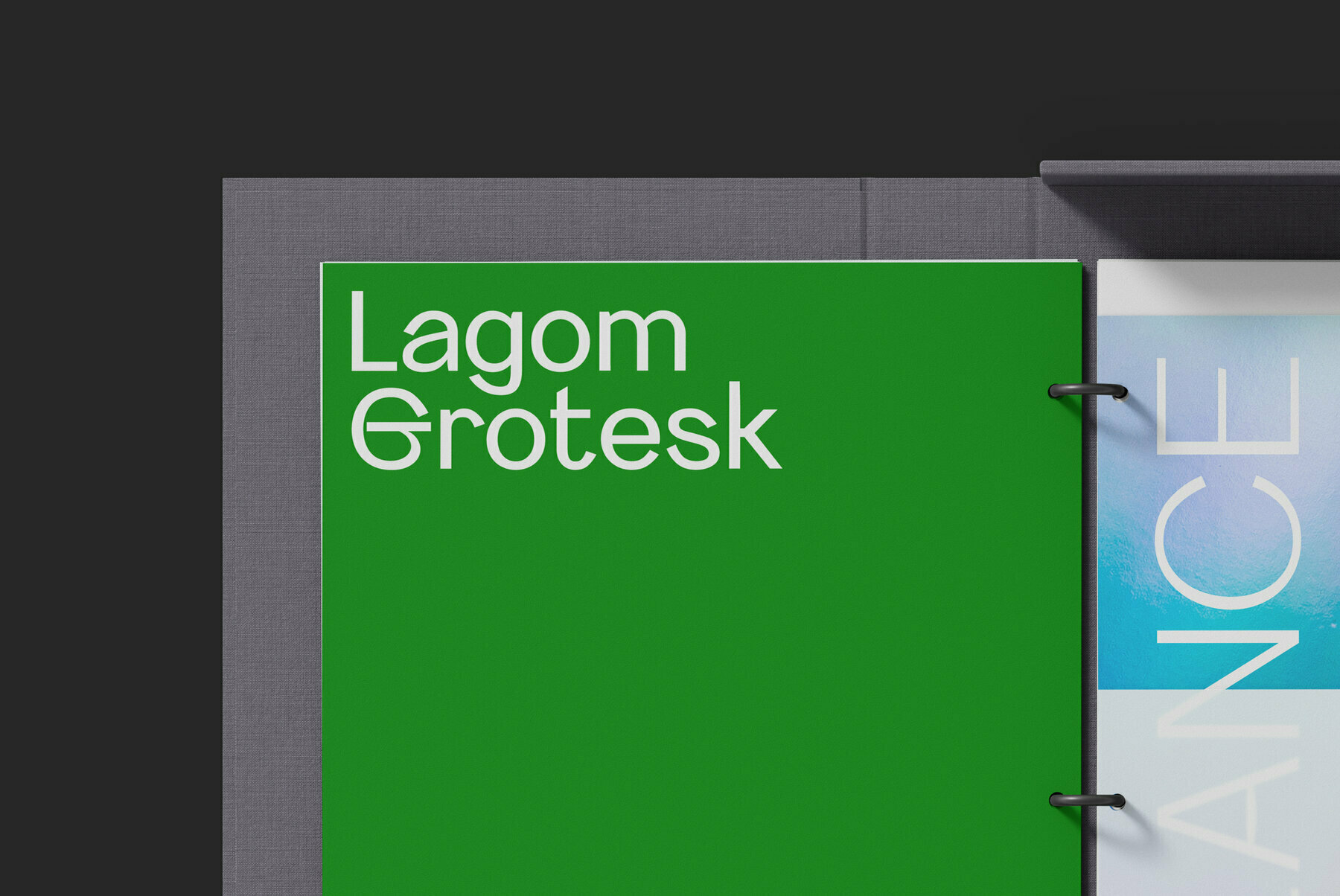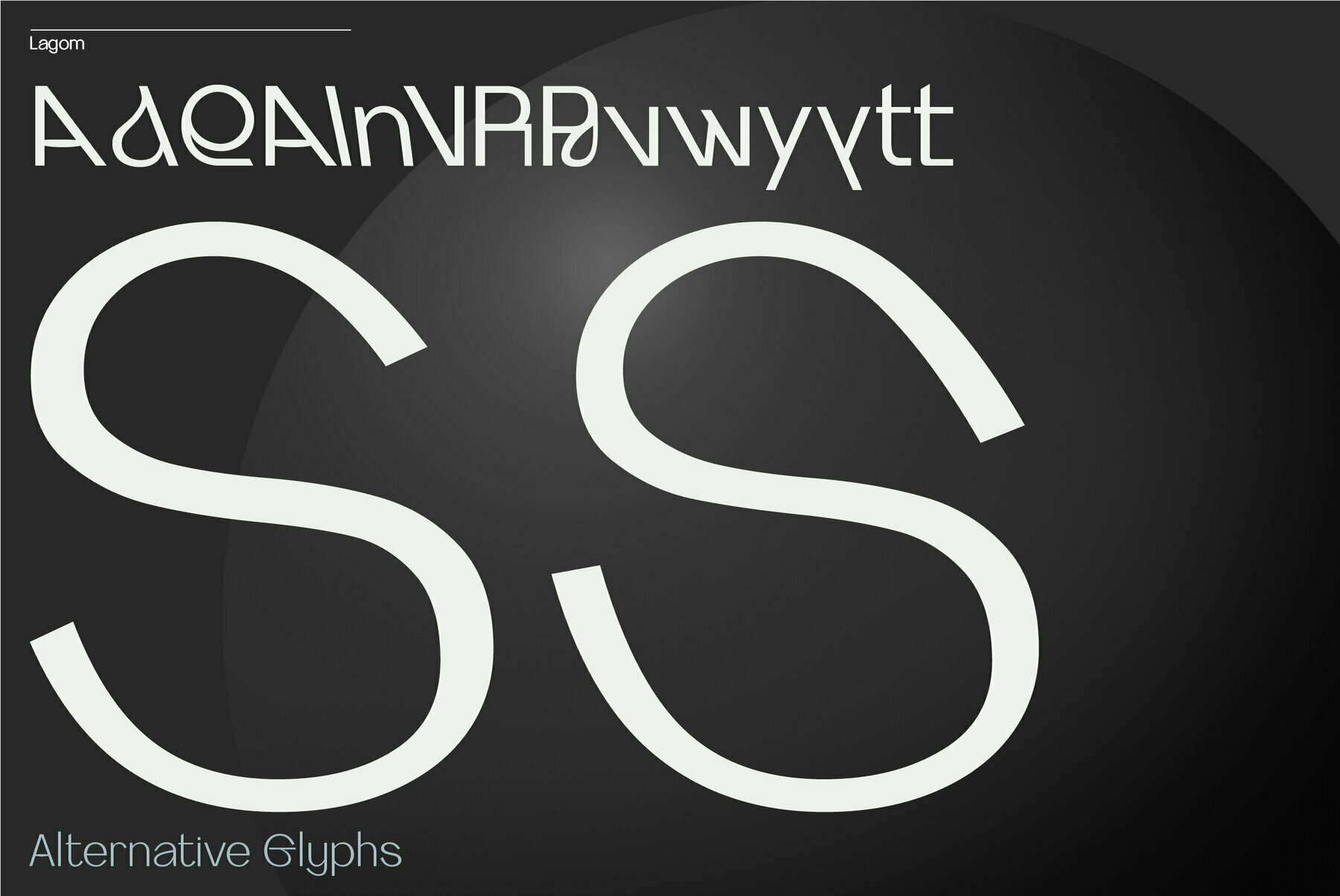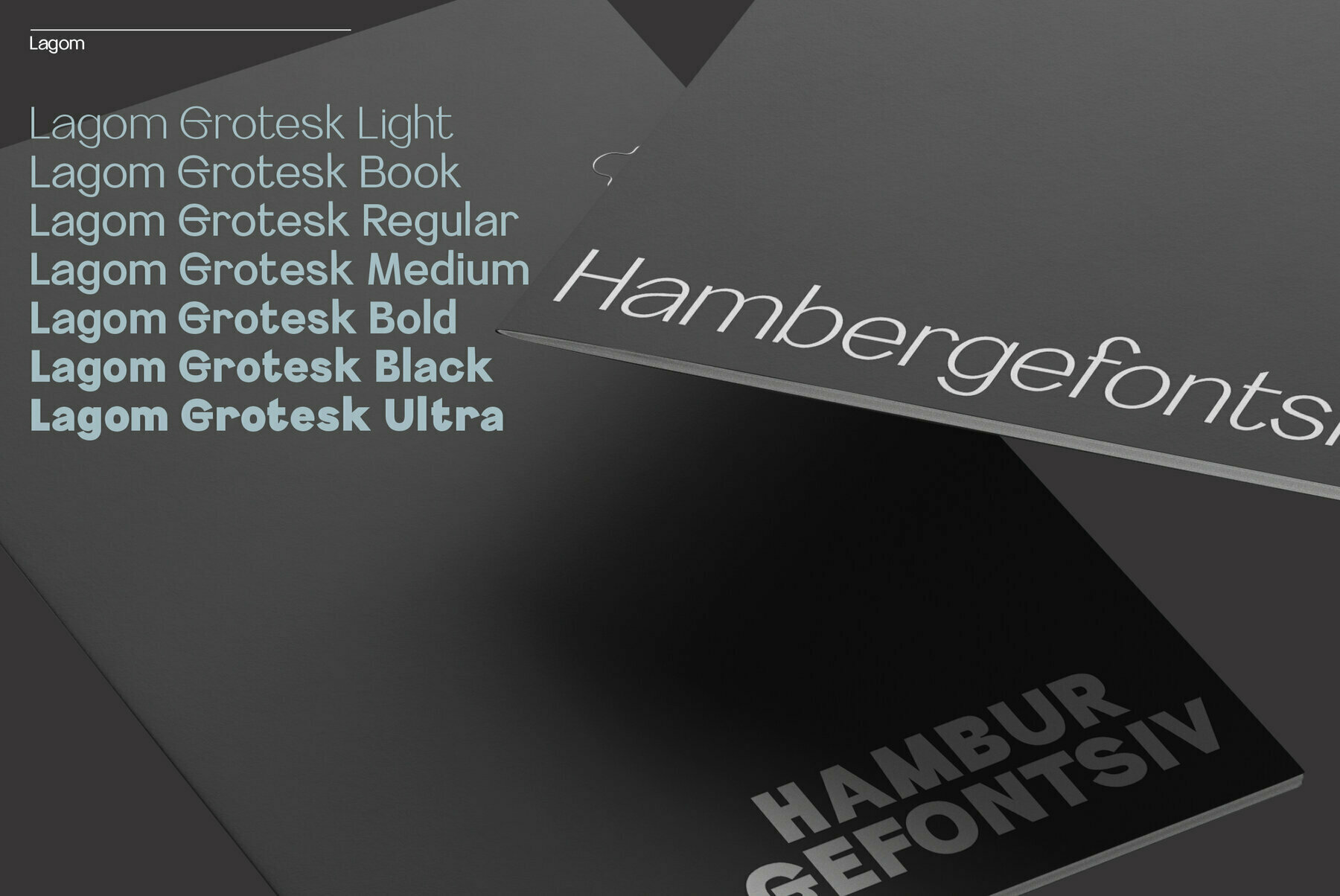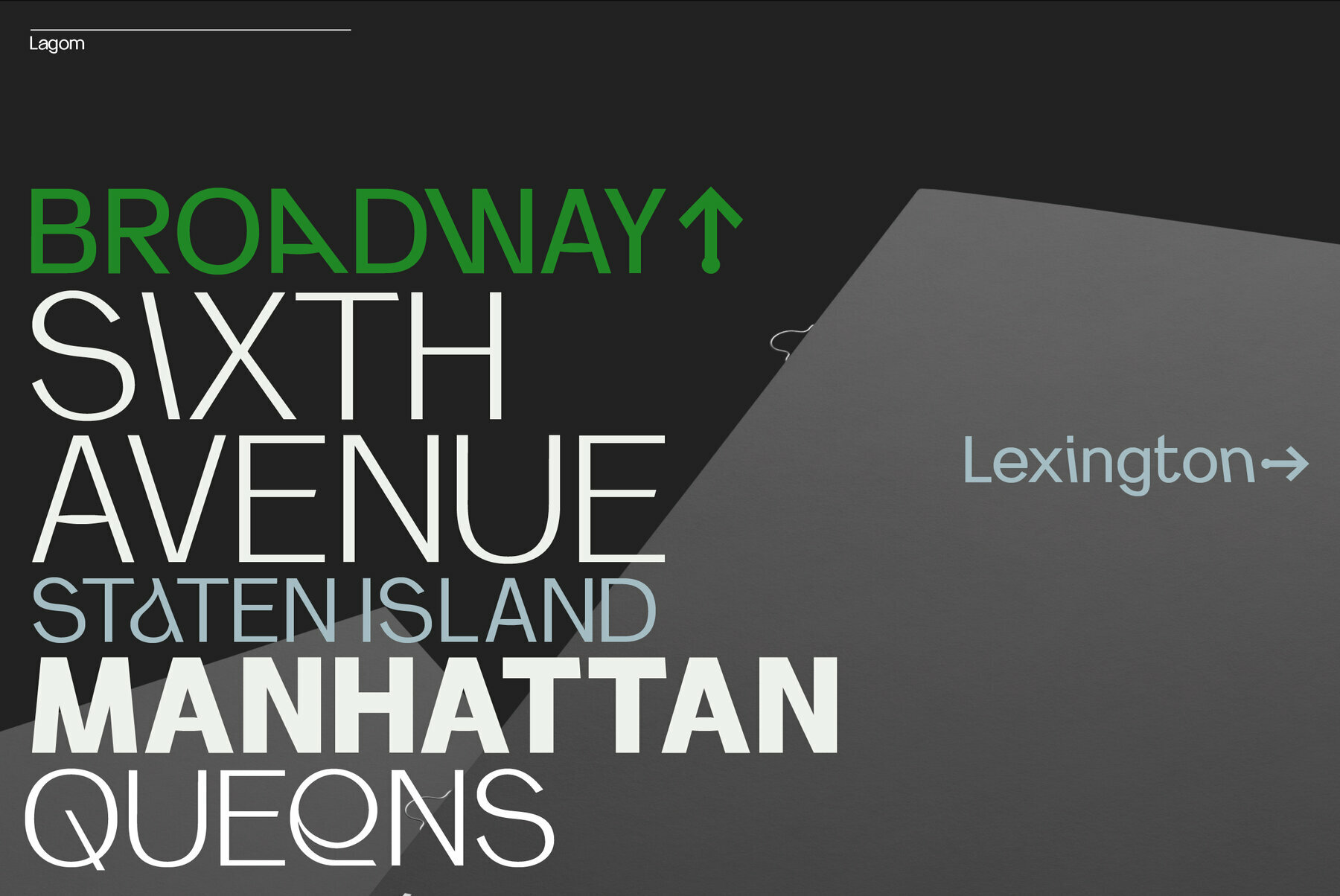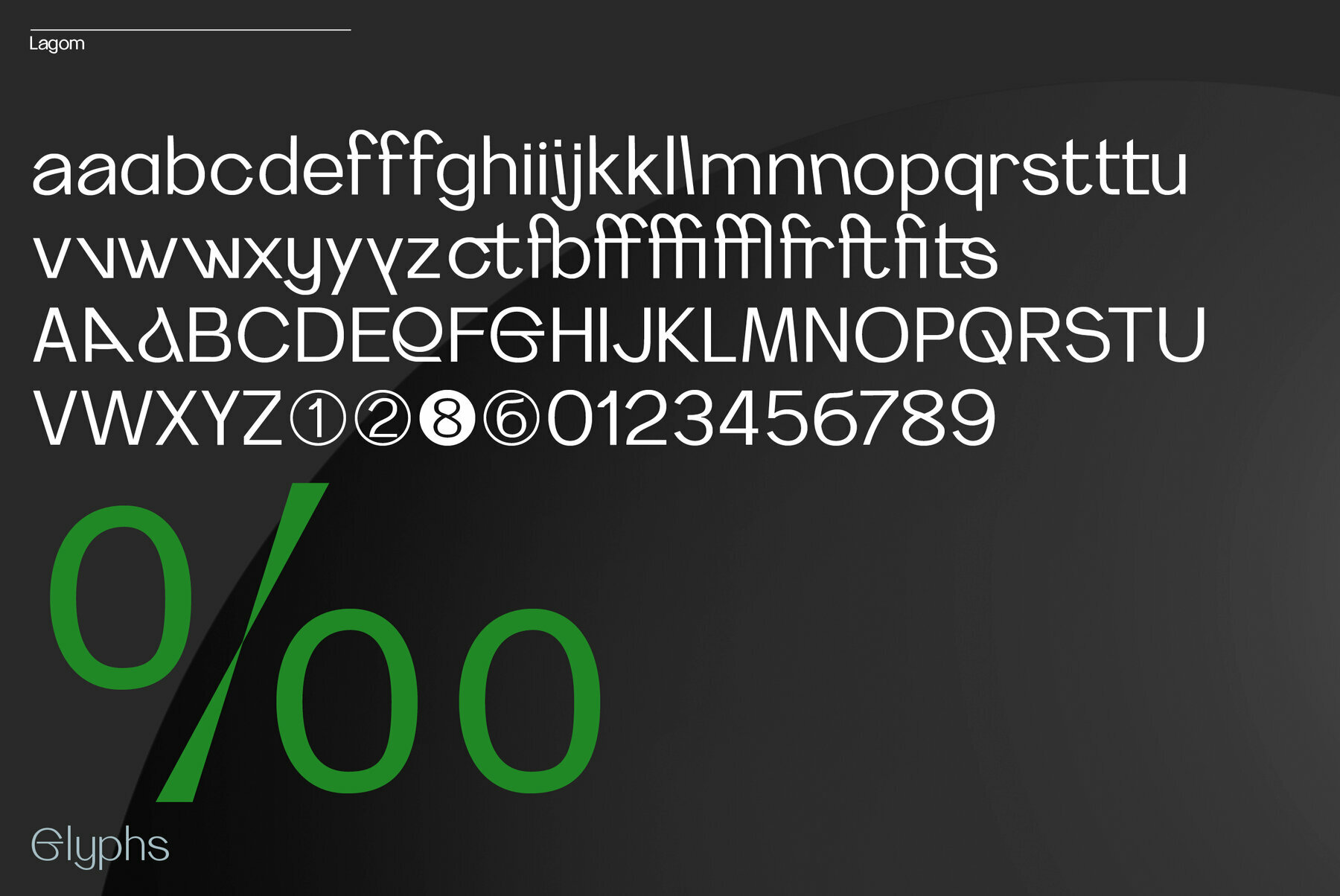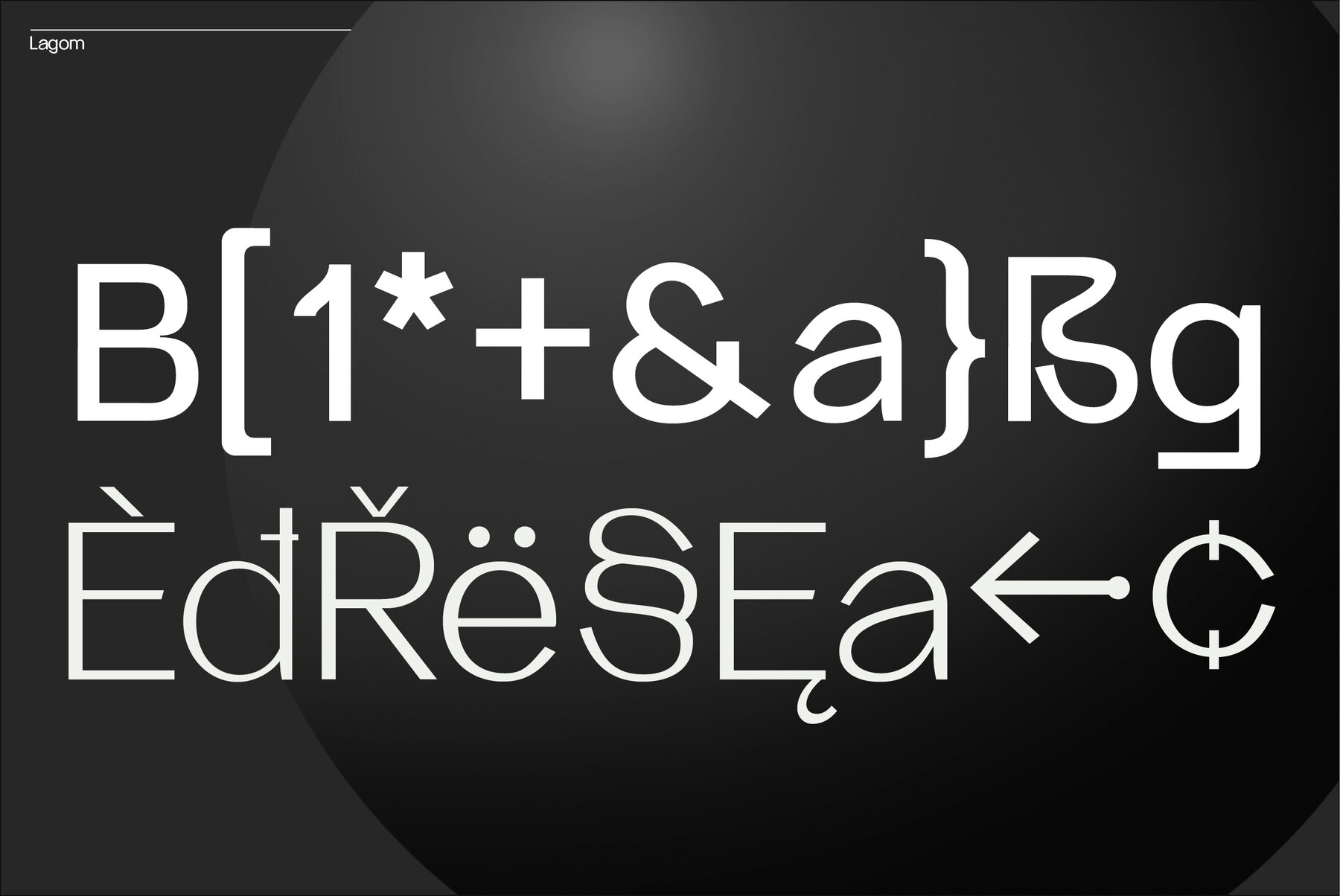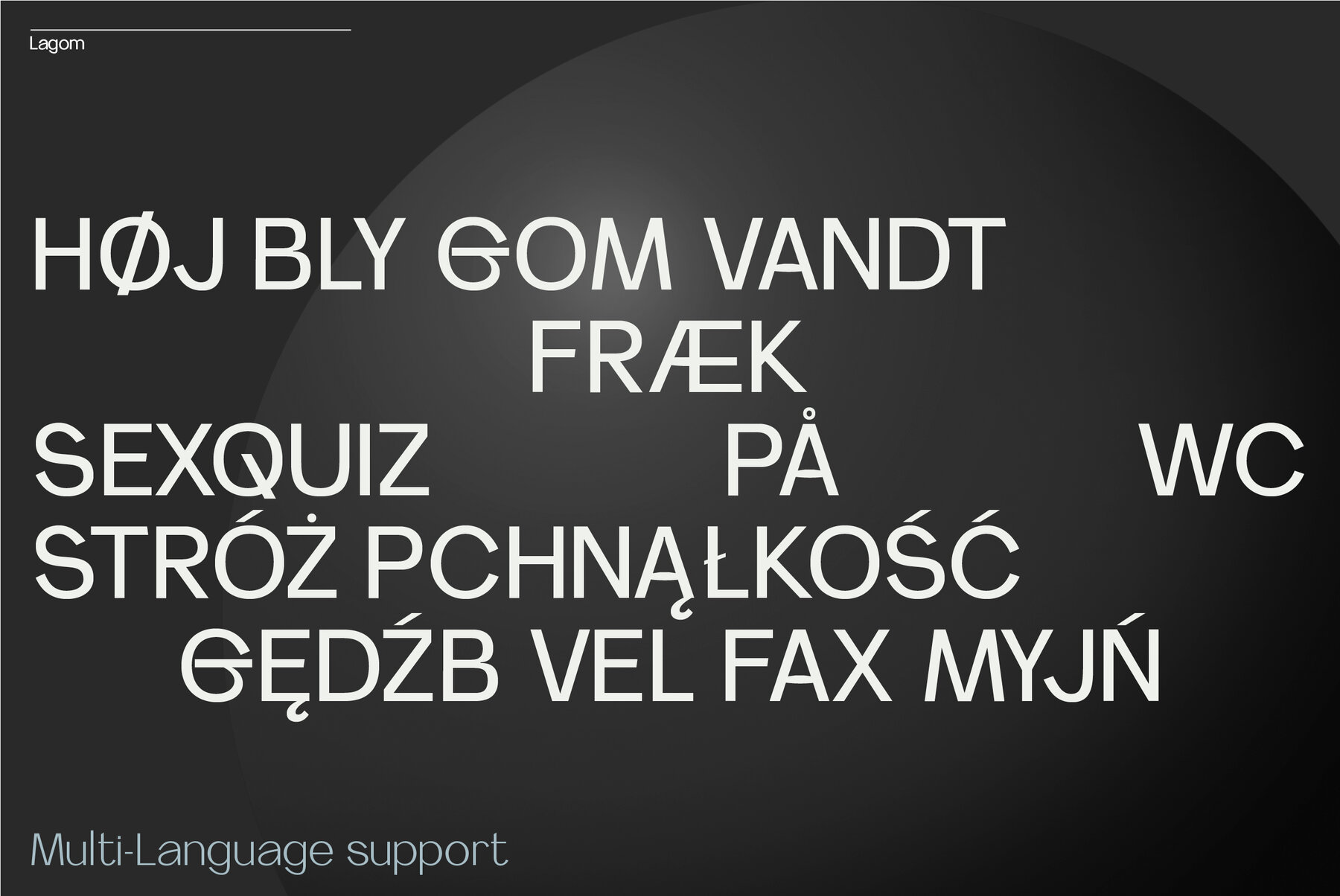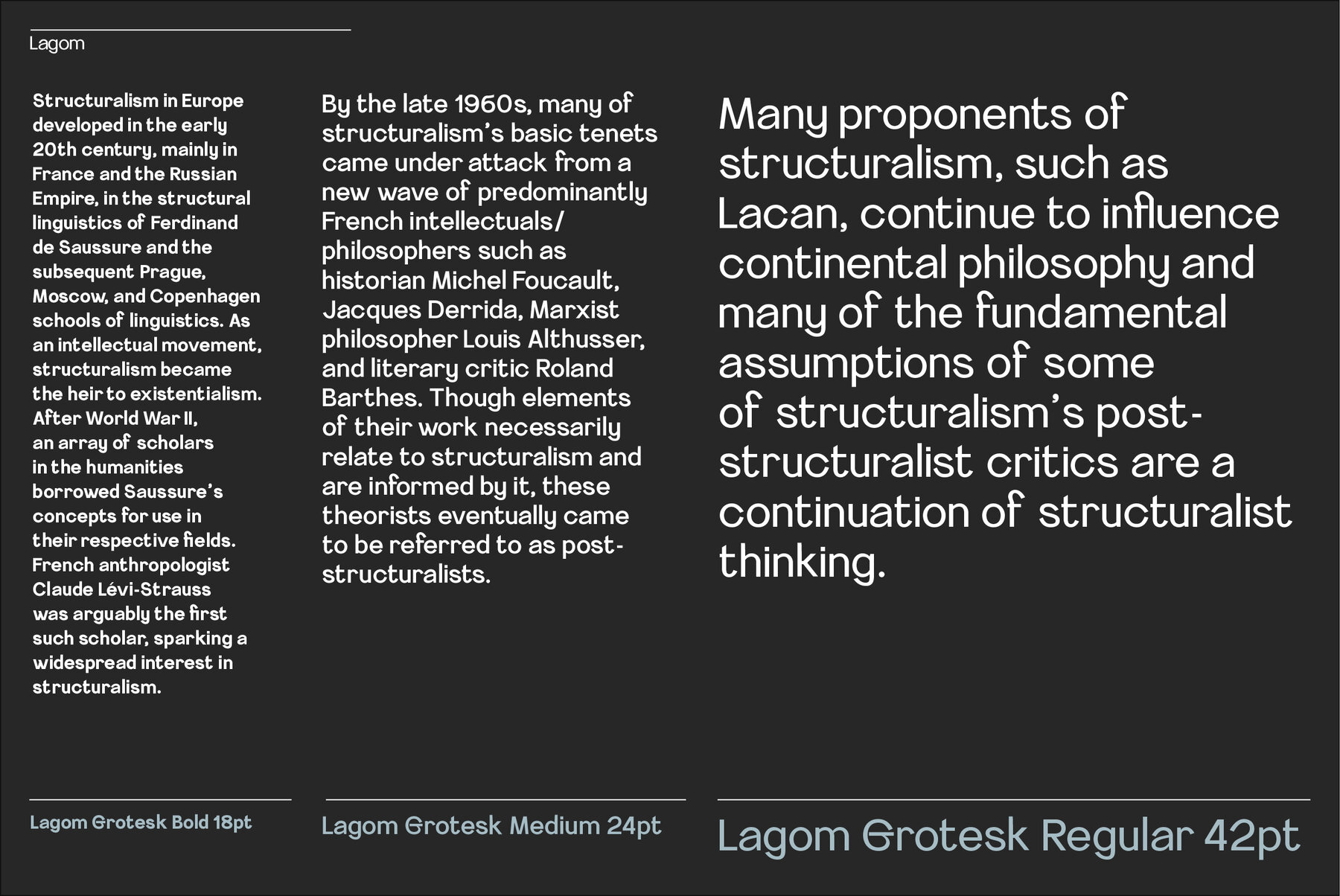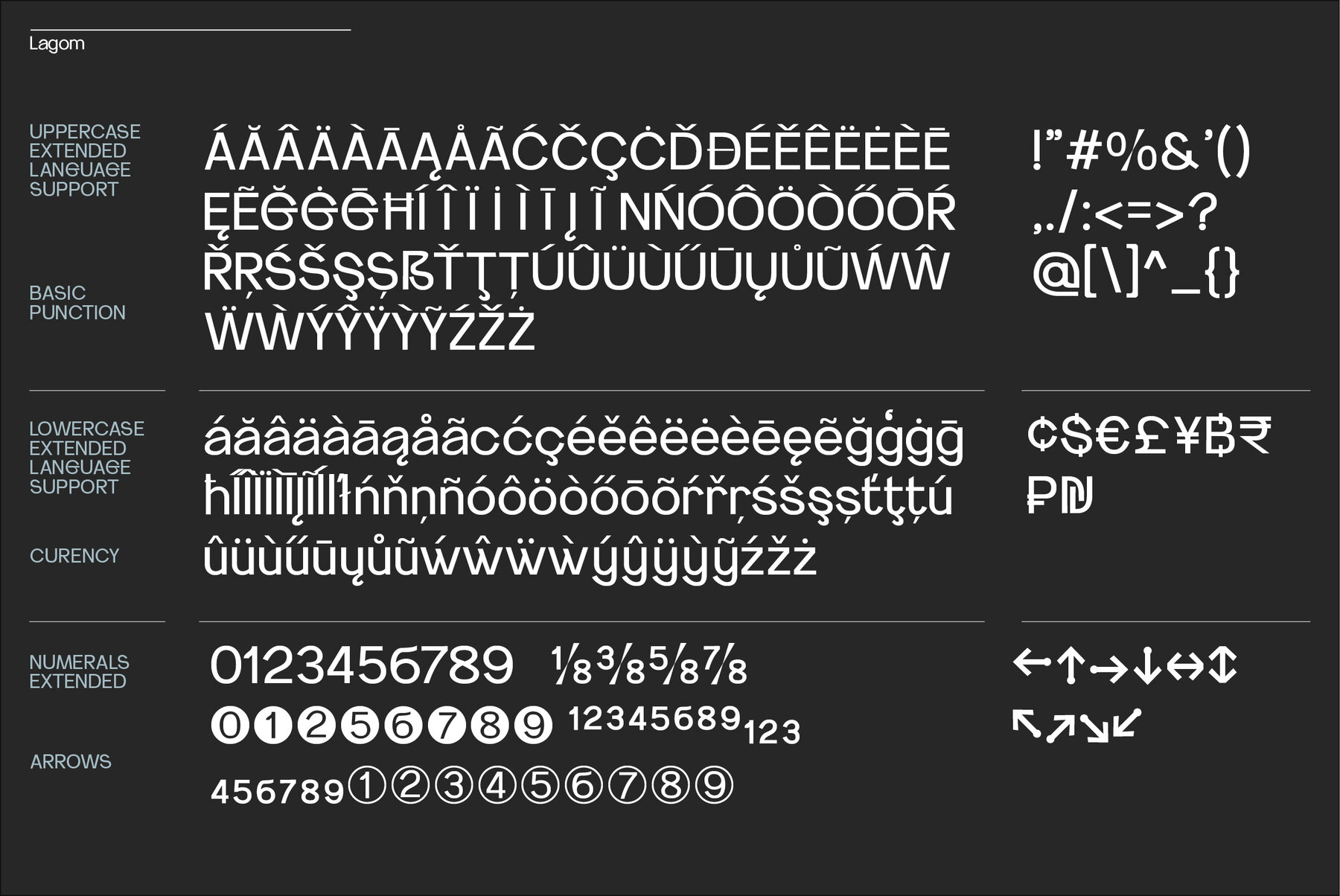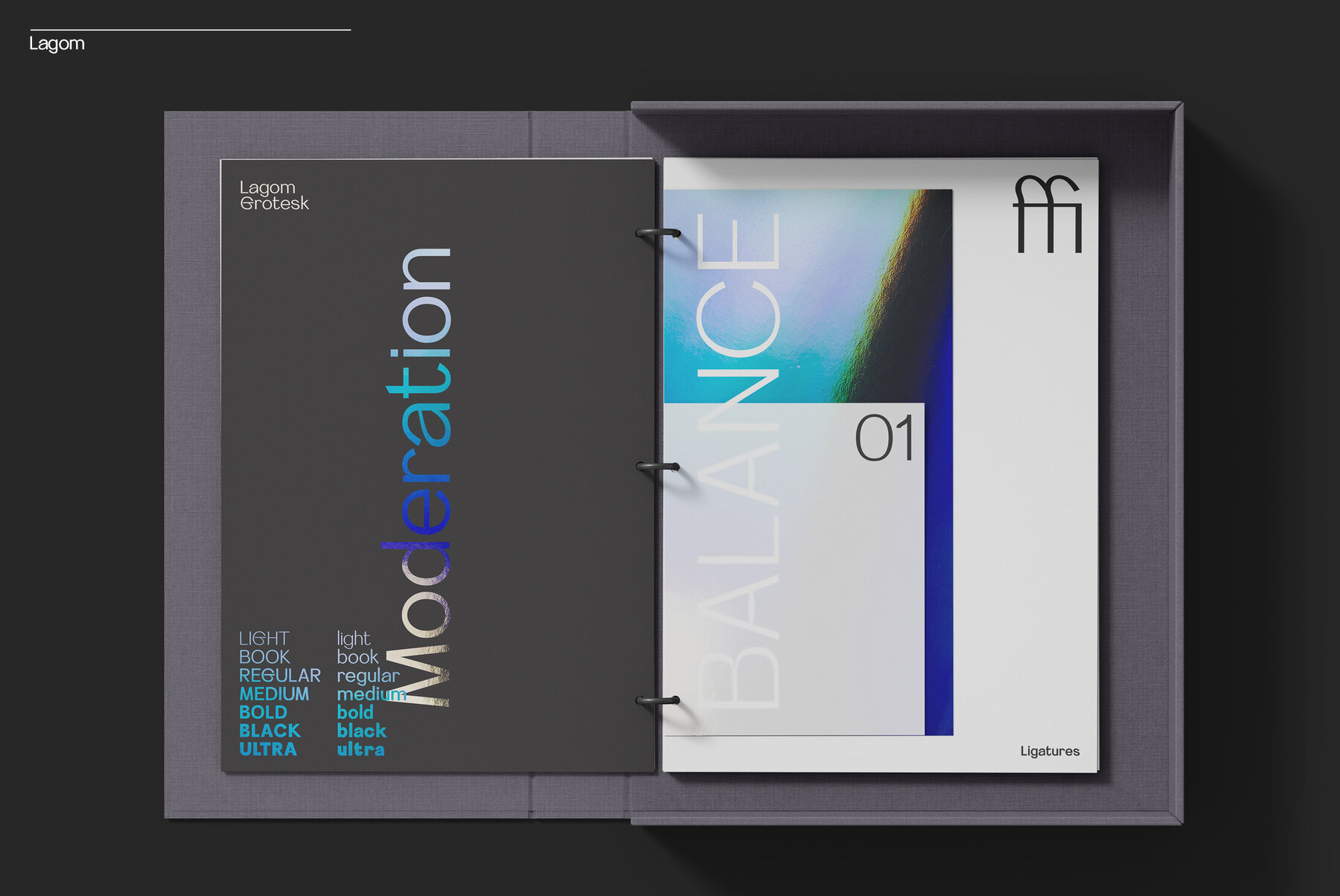
Lagom Grotesk Font
Lagom Grotesk is a contemporary neo-grotesque sans serif typeface with strong stylistic geometric contrasts. Its distinctive wide-open stance was designed to give the right visual consistency for branding and communications, representing the shifting contemporary aesthetics. The distinctive stance gives the right visual consistency for branding and communications. Lagom Grotesk is perfectly suited for headlines, large-format prints, brand identities, social media, advertising, editorial design, posters, magazines, logos, headings, body copy, digital and more